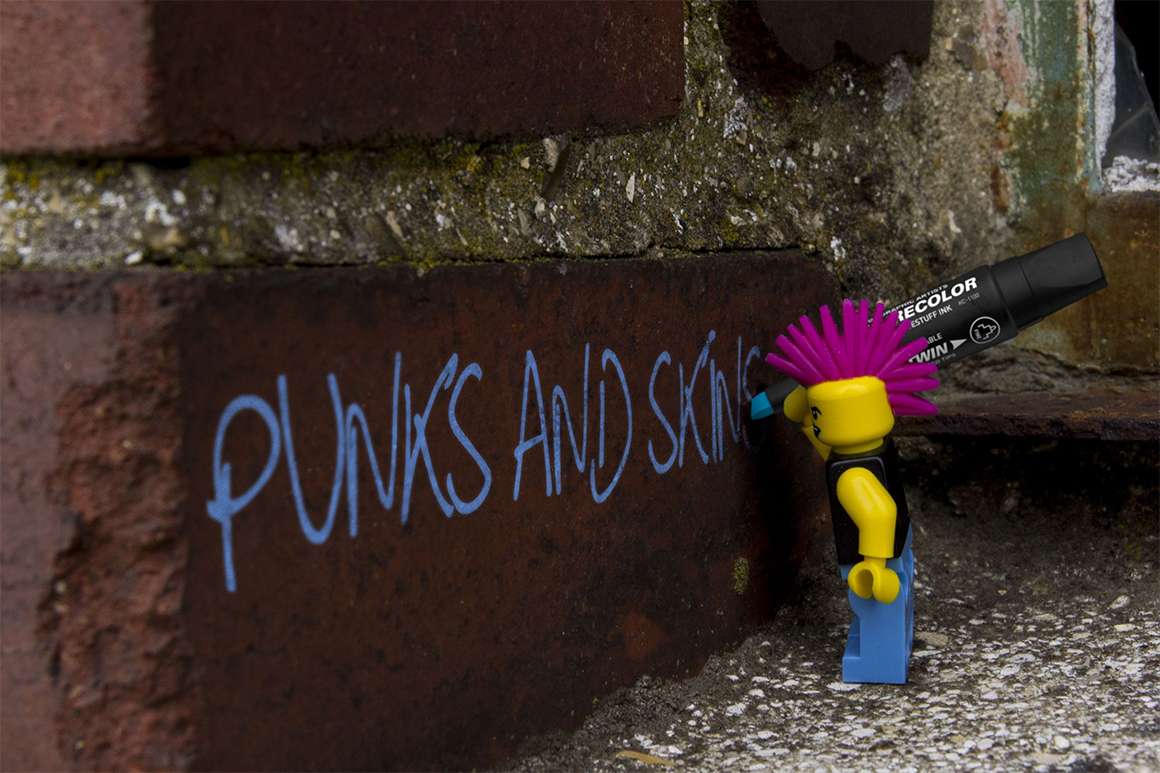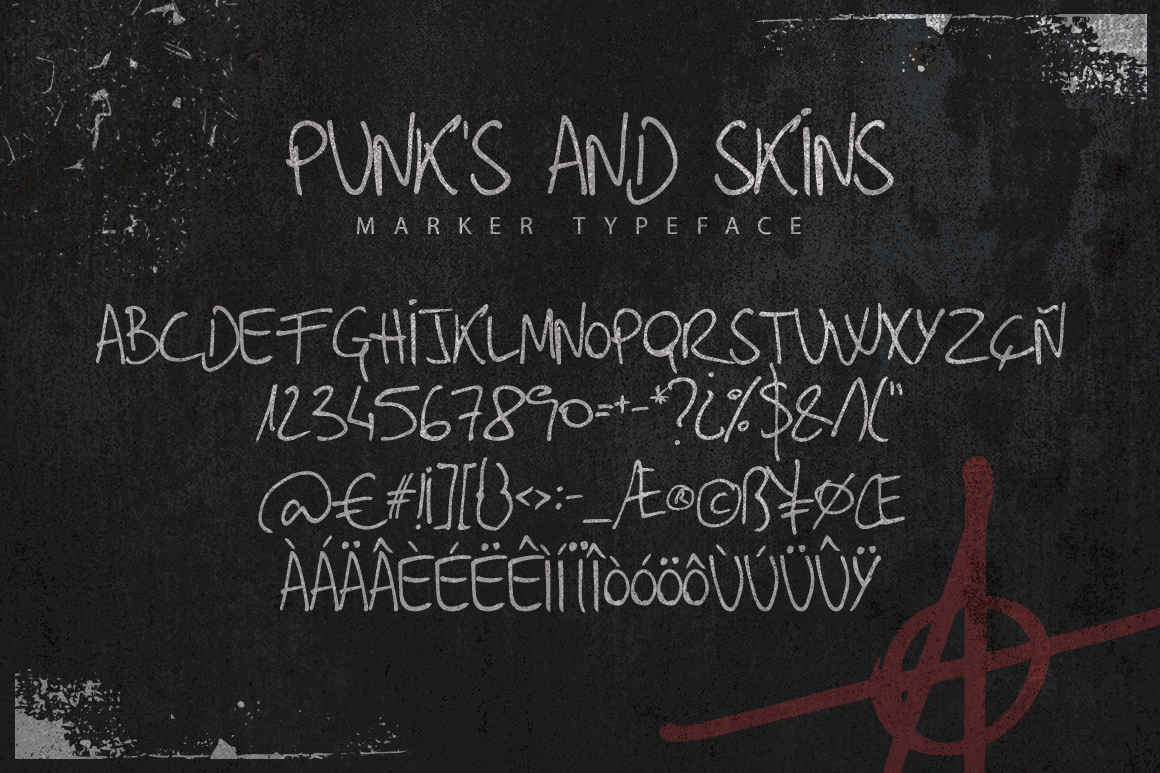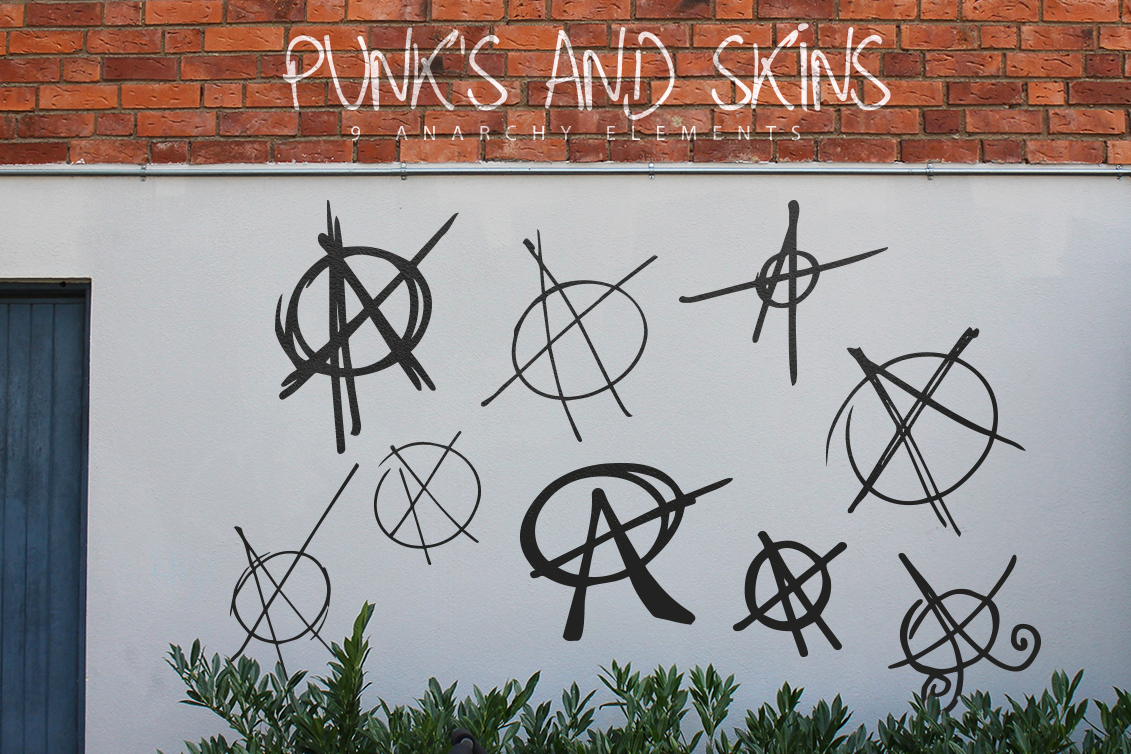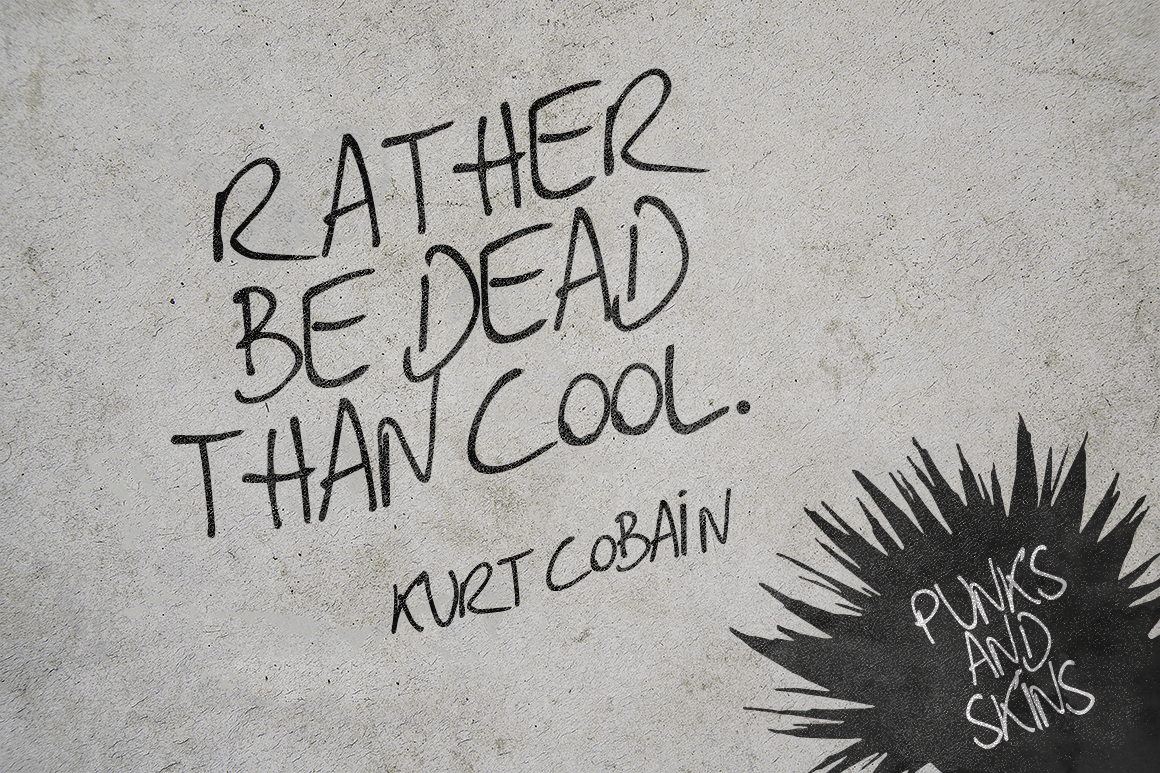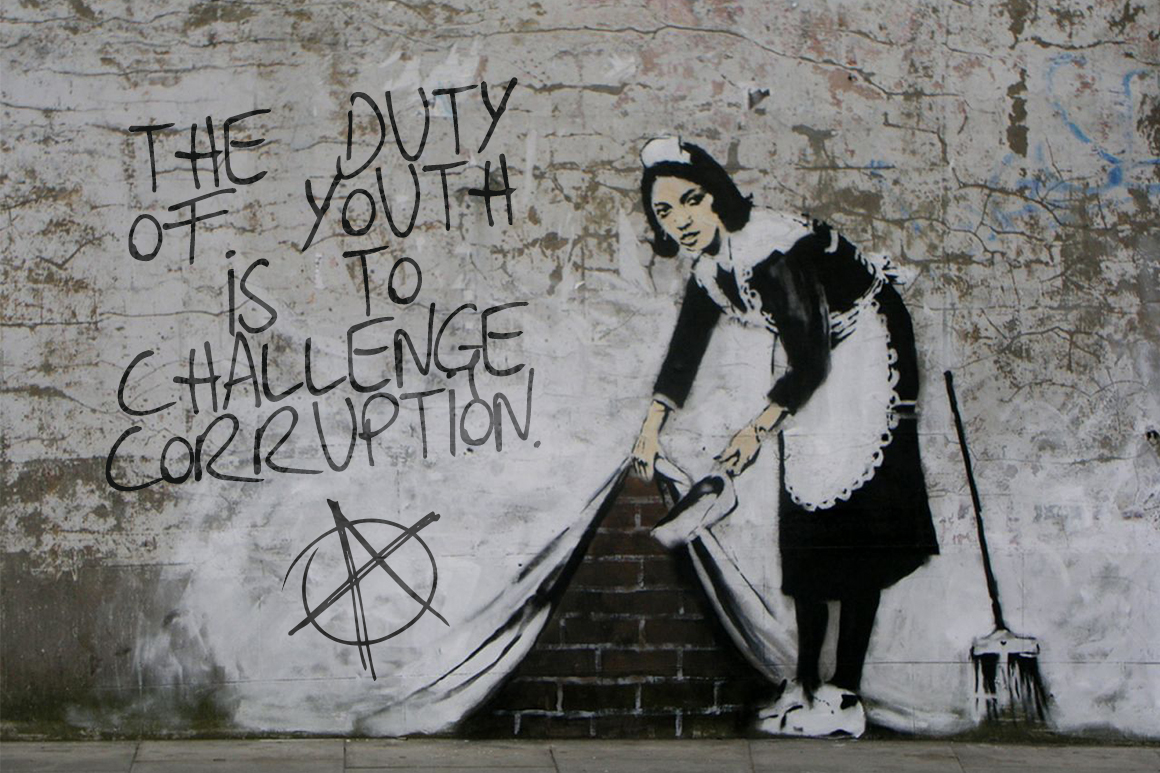
Punks and Skins Font
About Punks and Skins Font
Punks and Skins is a handmade font with a punk-rock touch.
This anarchistic font is fun and playful for creating edgy designs.